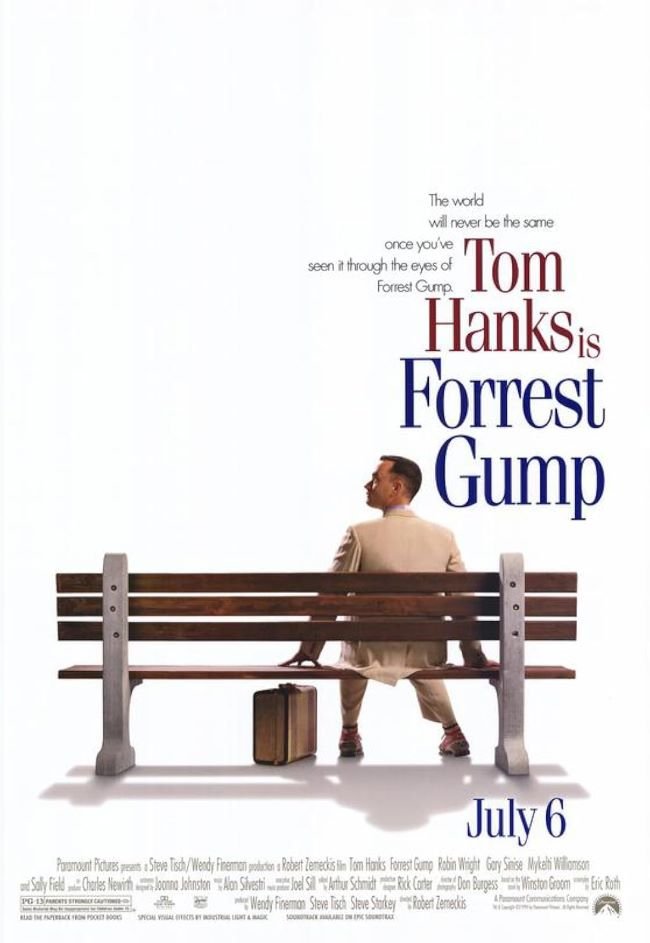
Forrest Gump Font
Forrest Gump font does something most movie typography never attempts — it stays out of the way. The clean, balanced serif lettering used in Robert Zemeckis’ beloved 1994 film never competes for attention; it simply sets the tone with the same quiet sincerity that defines Forrest himself. MADE Saonara is the closest freely available match, replicating that same composed, professional serif character that feels both timeless and approachable.
For those wanting a slightly different take on the same warmth, Redrains offers an equally charming alternative with its own gentle personality. Both are well-suited for heartfelt projects, nostalgic editorial layouts, tribute designs, or any creative work that benefits from typography that feels genuinely human — unhurried, unpretentious, and impossible not to trust from the very first glance.